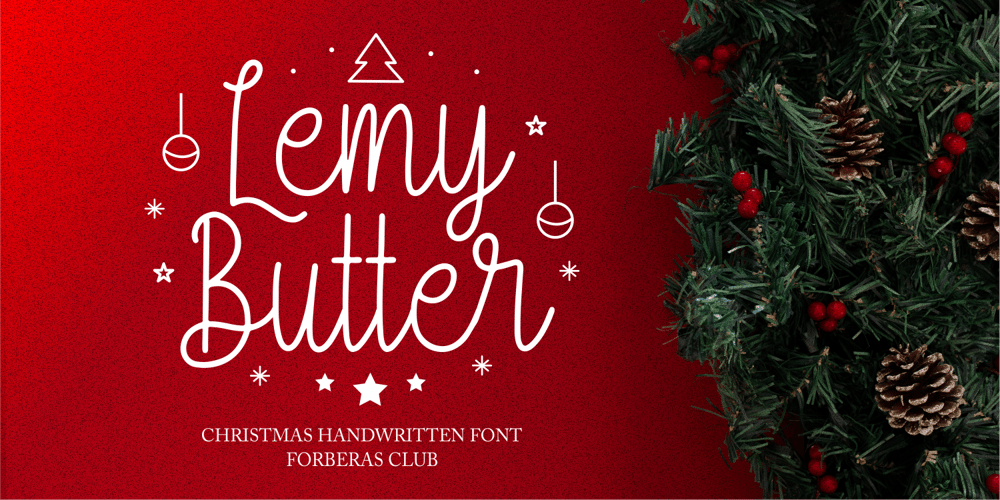
Lemy Butter
Lemy Butter font
Lemy Butter Font Family was designed by ANGGI HERMAWAN and published by Forberas Club. Lemy Butter contains 1 styles and family package options. Lemy Butter is handwritten font with monoline style. This font is good to application for christmas wedding, tees, simple letter, notes, invitation, celebration, cute moment and many more.